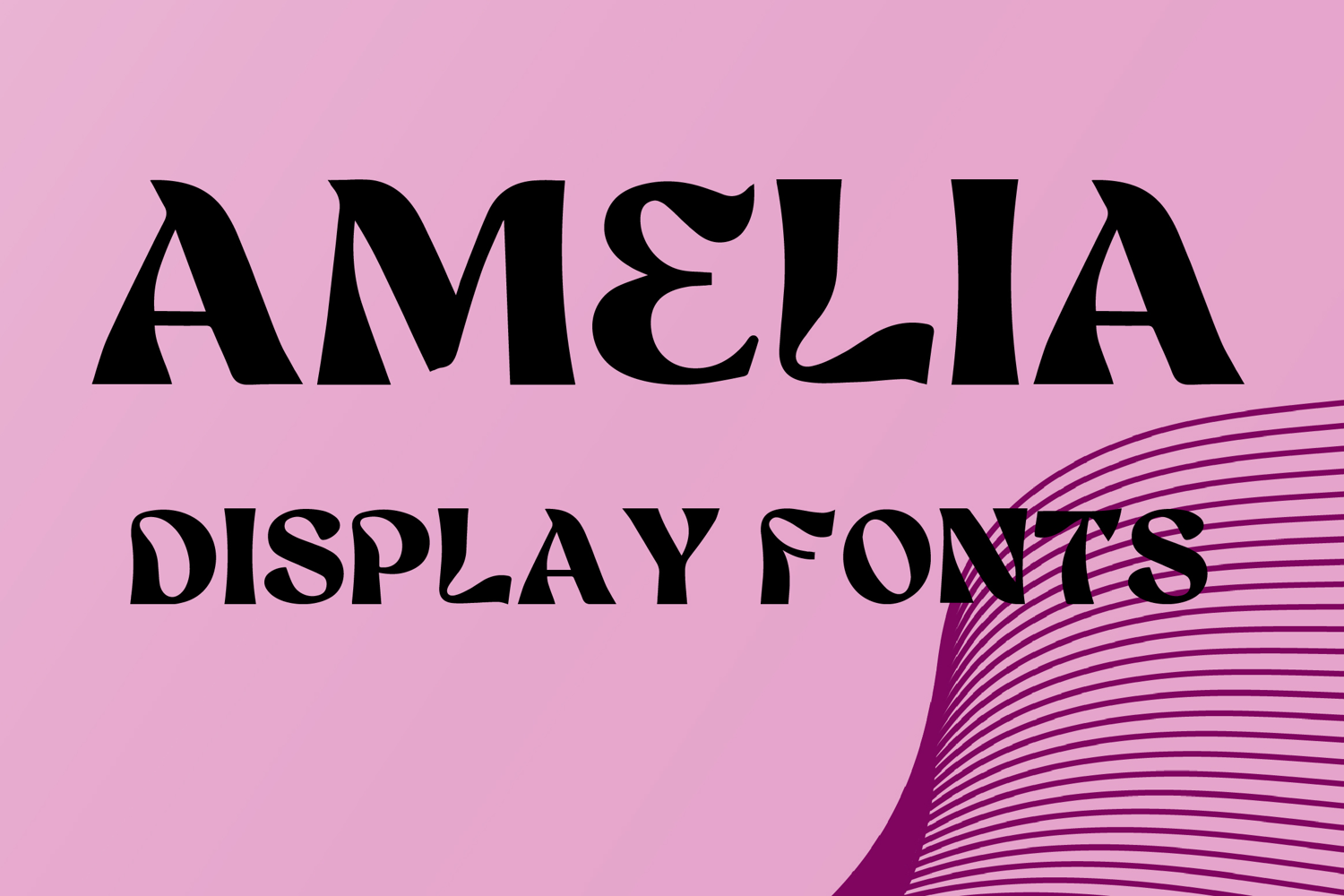
AMELIA
AMELIA is a whimsical decorative display font with a bold artistic style and graceful vintage-inspired charm. Its uppercase letterforms feature flowing curves, playful flared terminals, and unique ornamental shapes that create an elegant, expressive, and eye-catching look. Designed with uppercase letters A–Z and numbers 0–9, AMELIA is perfect for branding, posters, packaging, invitations, logos, social media graphics, and creative projects that need a stylish and memorable statement.